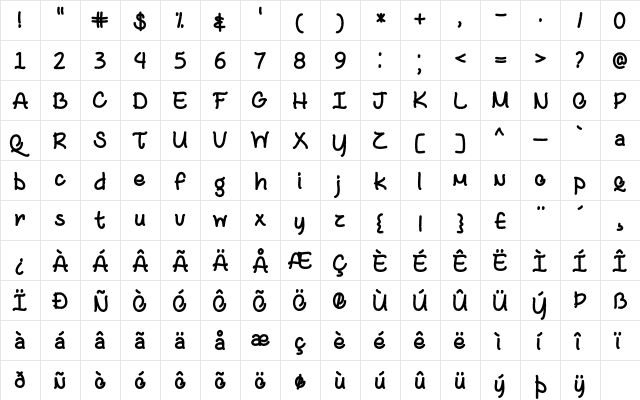
Black and Bitter Coffee Regular
| Designer | Misti's Fonts |
Design Context for Black and Bitter Coffee Typeface
Black and Bitter Coffee is a composed and adaptable typeface that performs quietly and consistently across a wide range of design contexts.